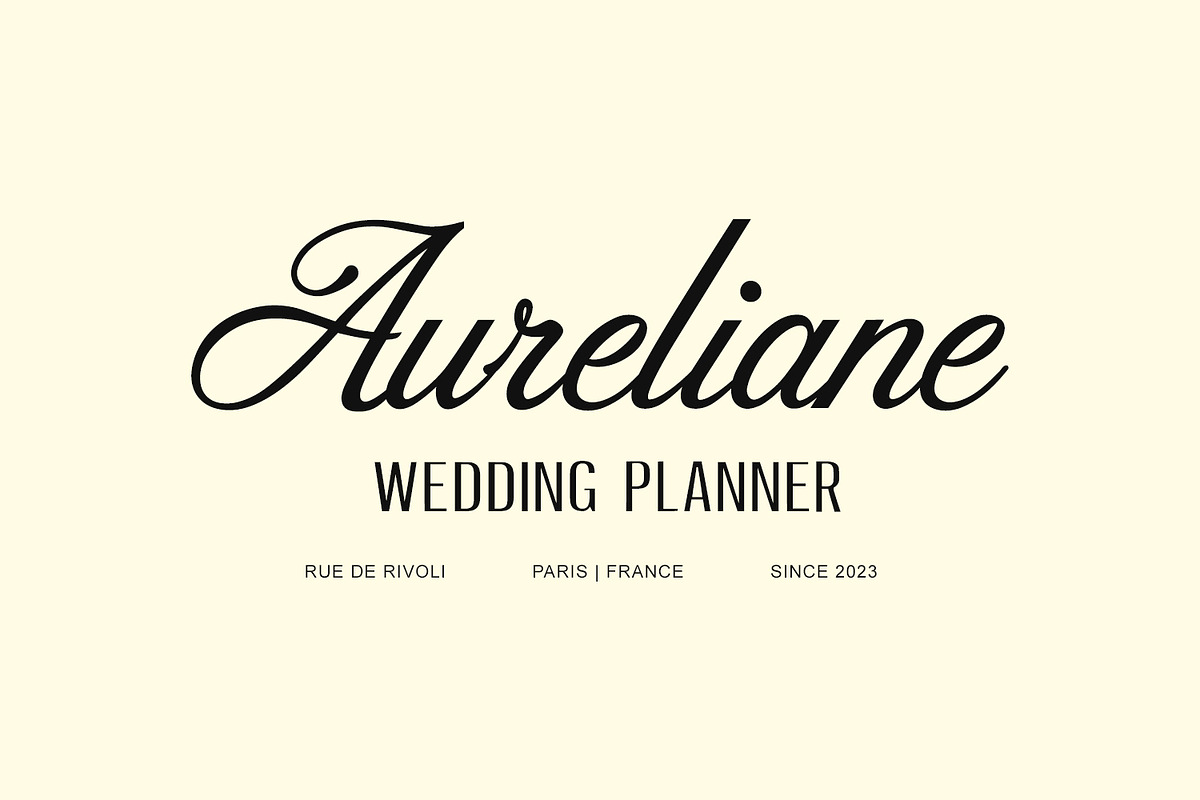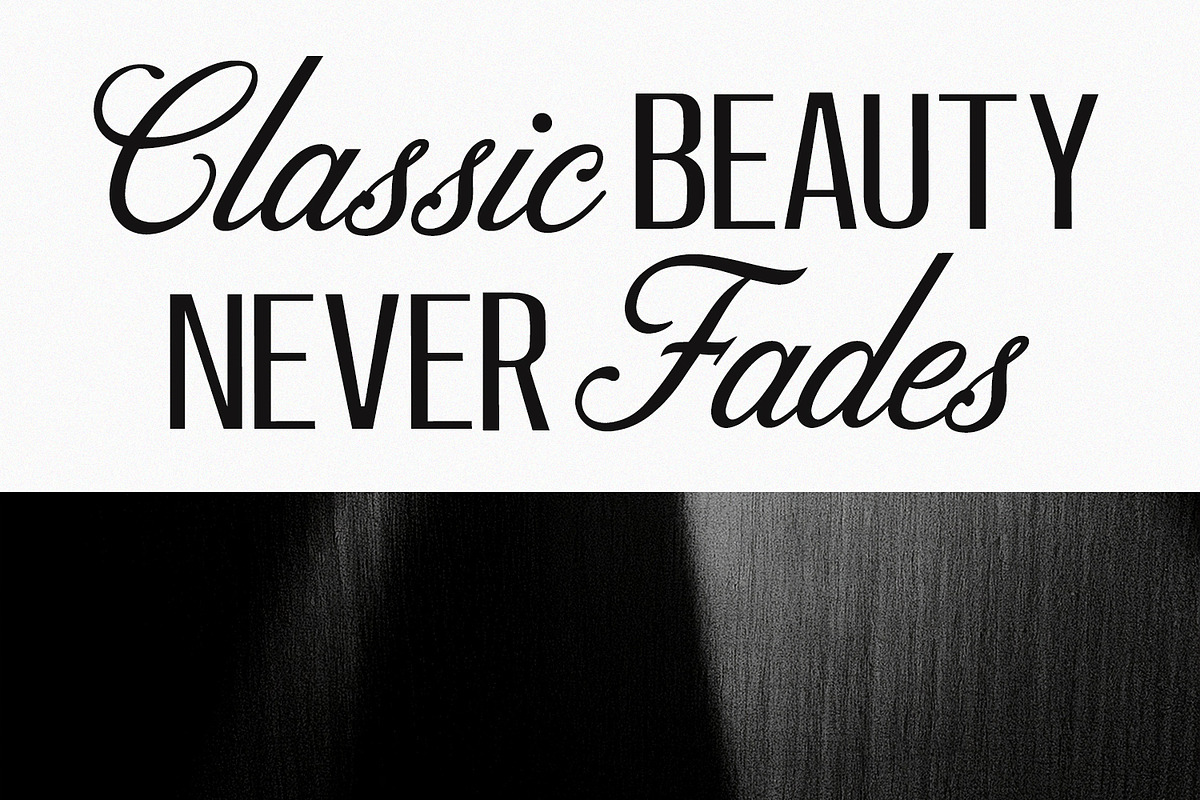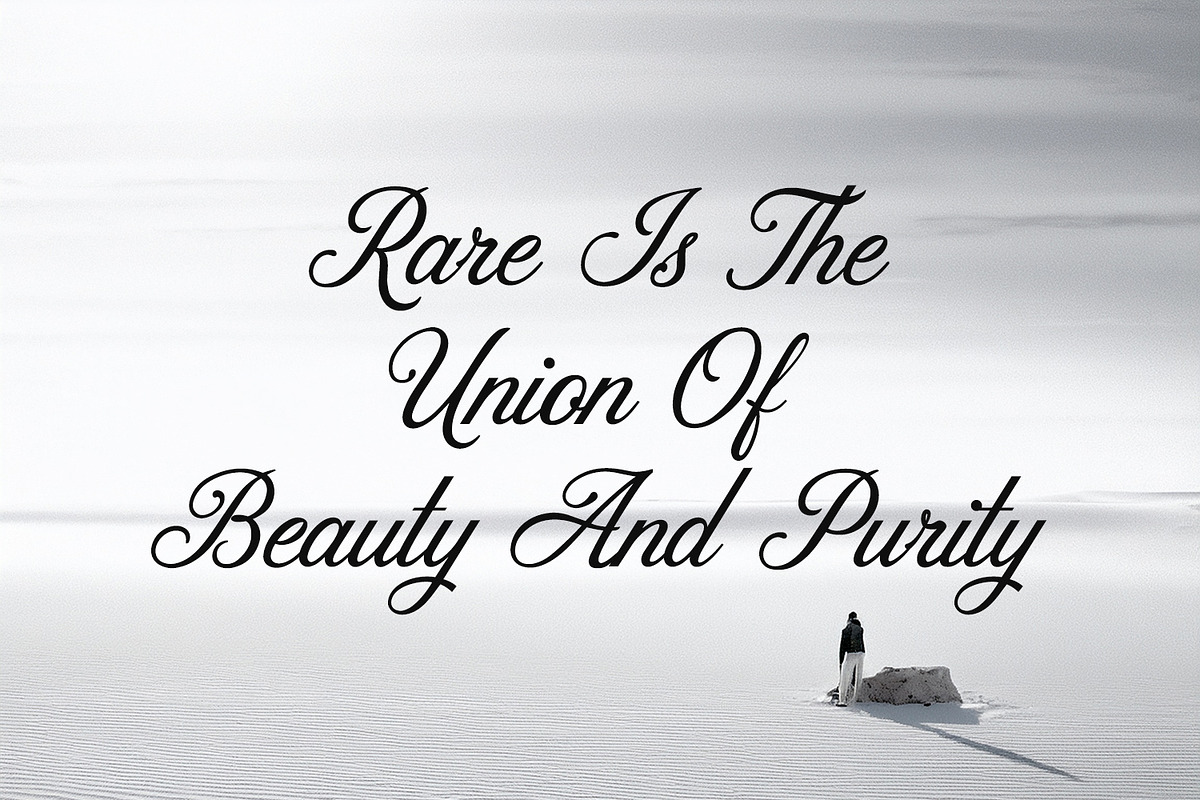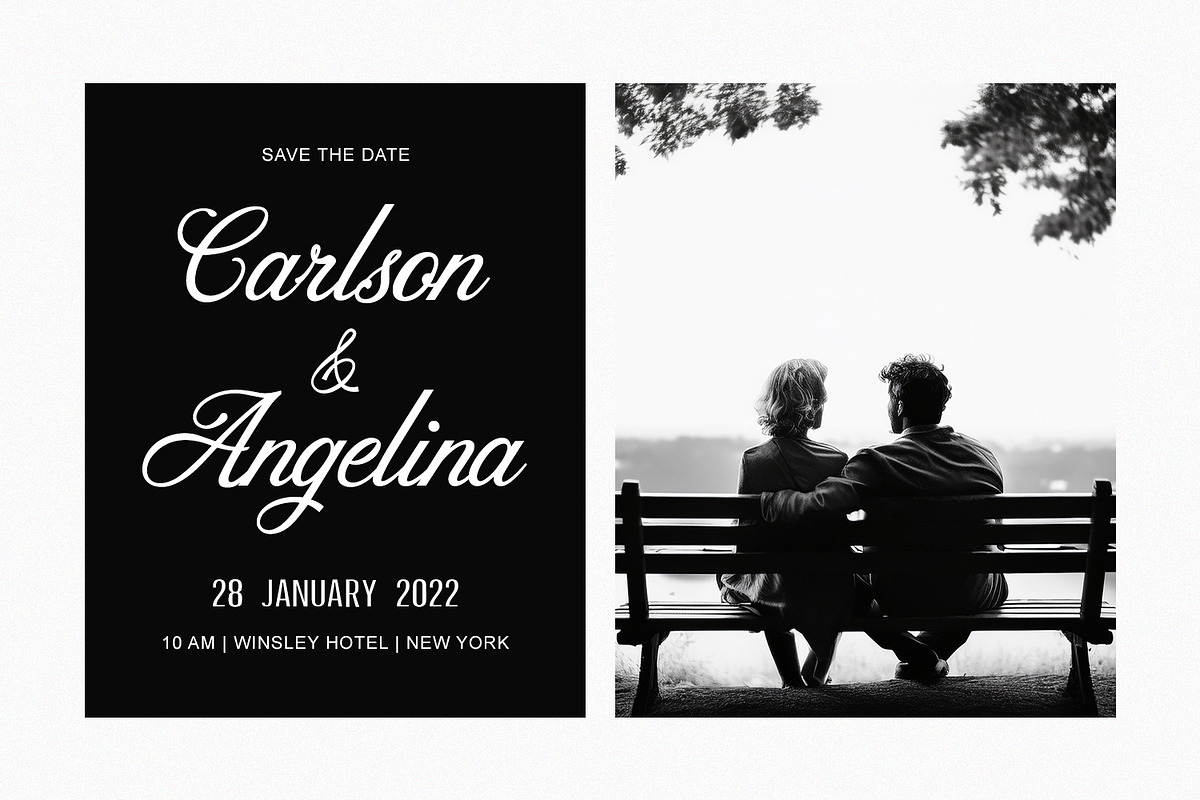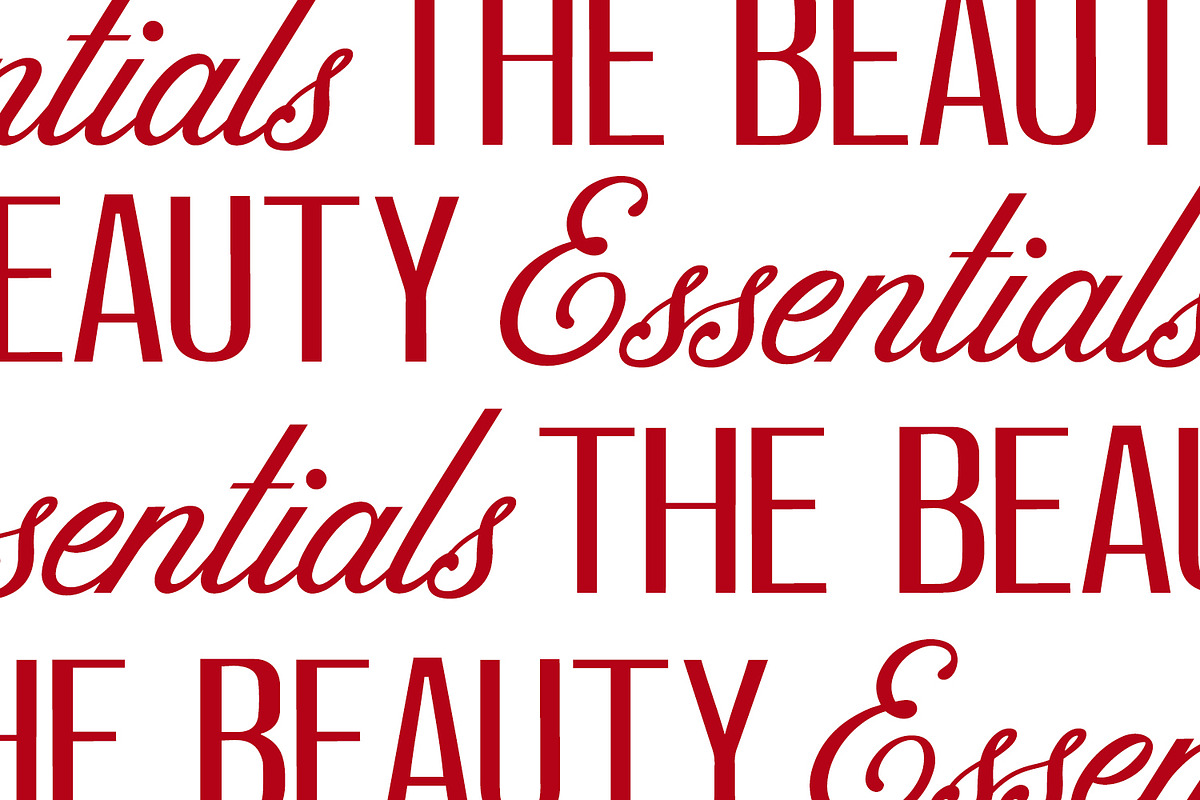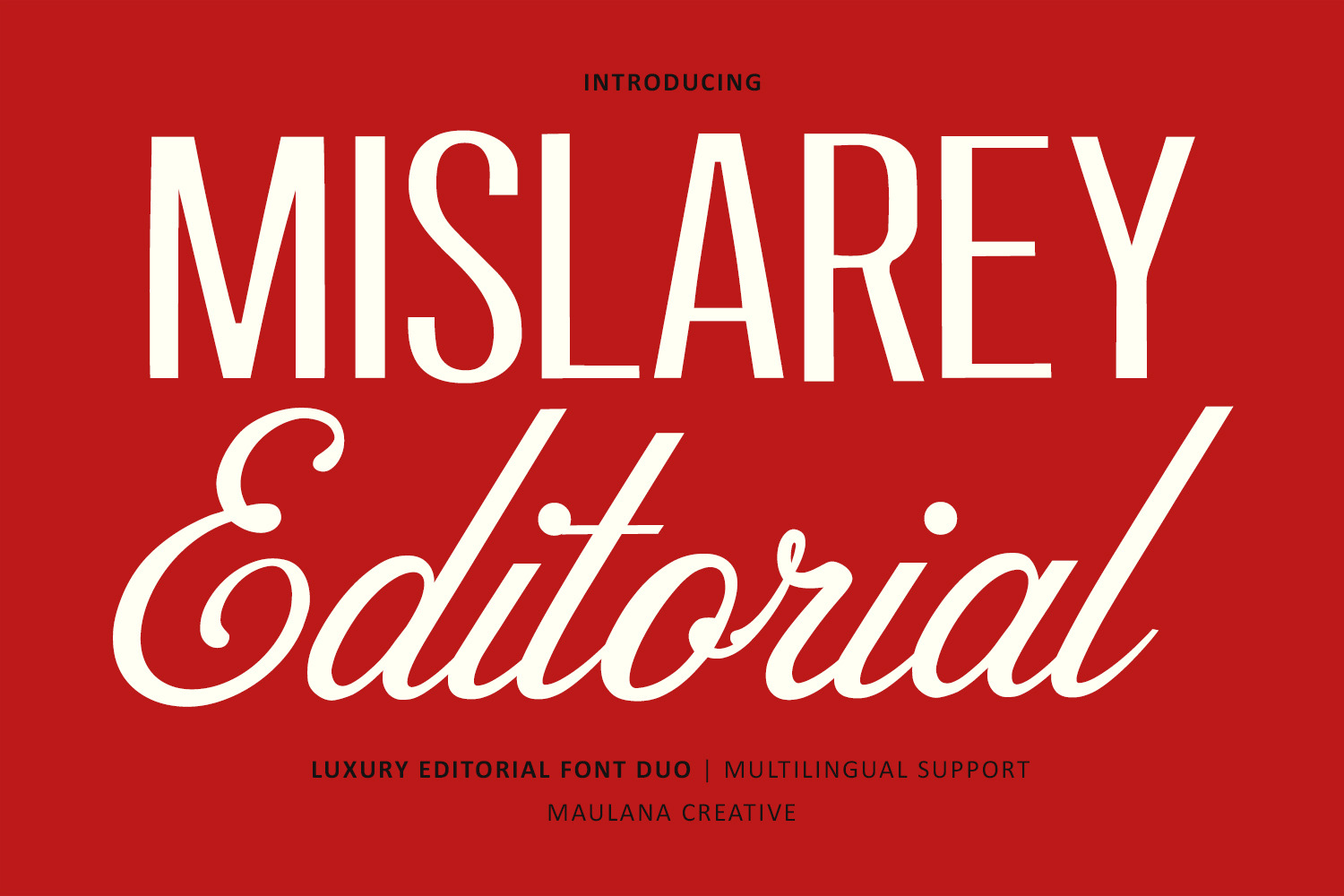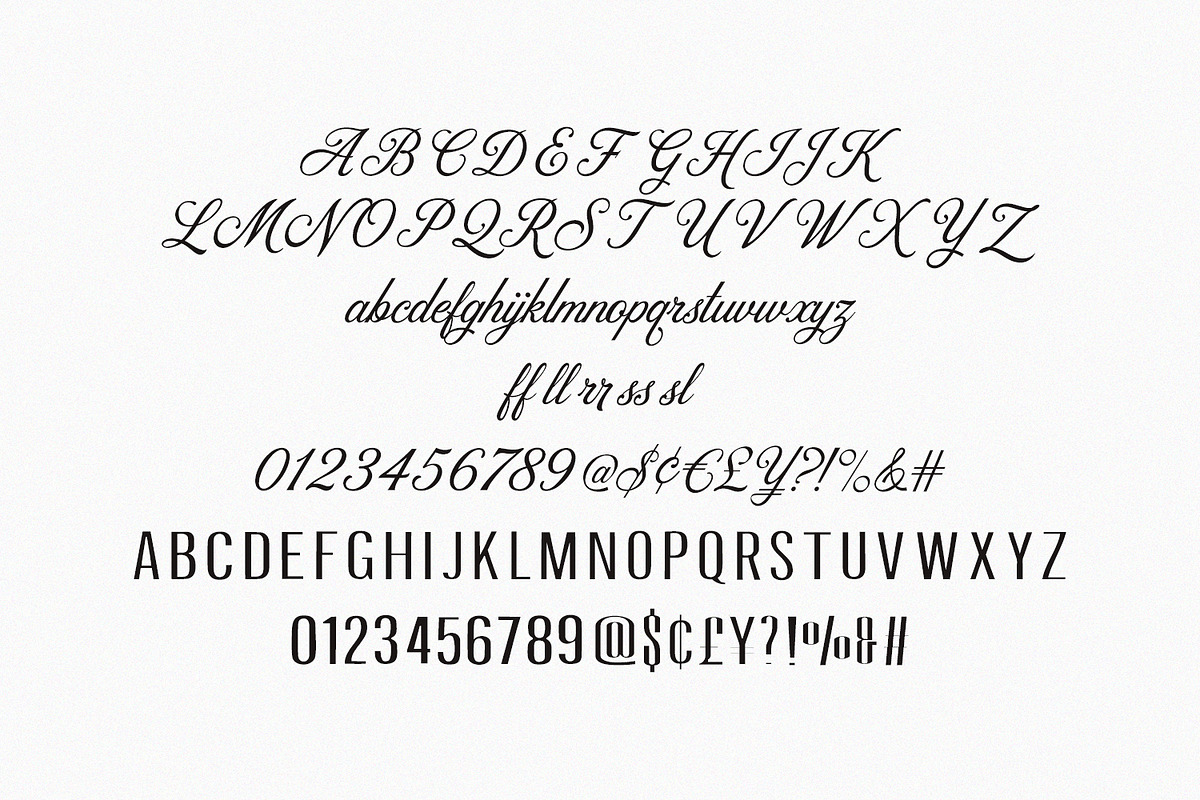
Mislarey Classic Editorial Font Duo
Mislarey Classic Editorial Font Duo is a refined typography pairing that combines a high-contrast condensed sans-serif with a graceful cursive script. Designed to deliver sophisticated visual harmony, this duo blends clean modern structure with classic calligraphic flourishes. The clean lines of the sans-serif offer strong legibility for headlines, while the sweeping curves of the script add an expressive touch to featured text and branding.
Equipped with comprehensive multilingual support, ligatures, and stylistic alternates, this versatile font pair adapts seamlessly to upscale design projects. It excels in luxury identity design, editorial layouts, wedding stationery, packaging, high-end advertising, and social media graphics. Whether used together to create dynamic layout contrast or individually as standalone typefaces, Mislarey brings timeless elegance and visual polish to contemporary typography.